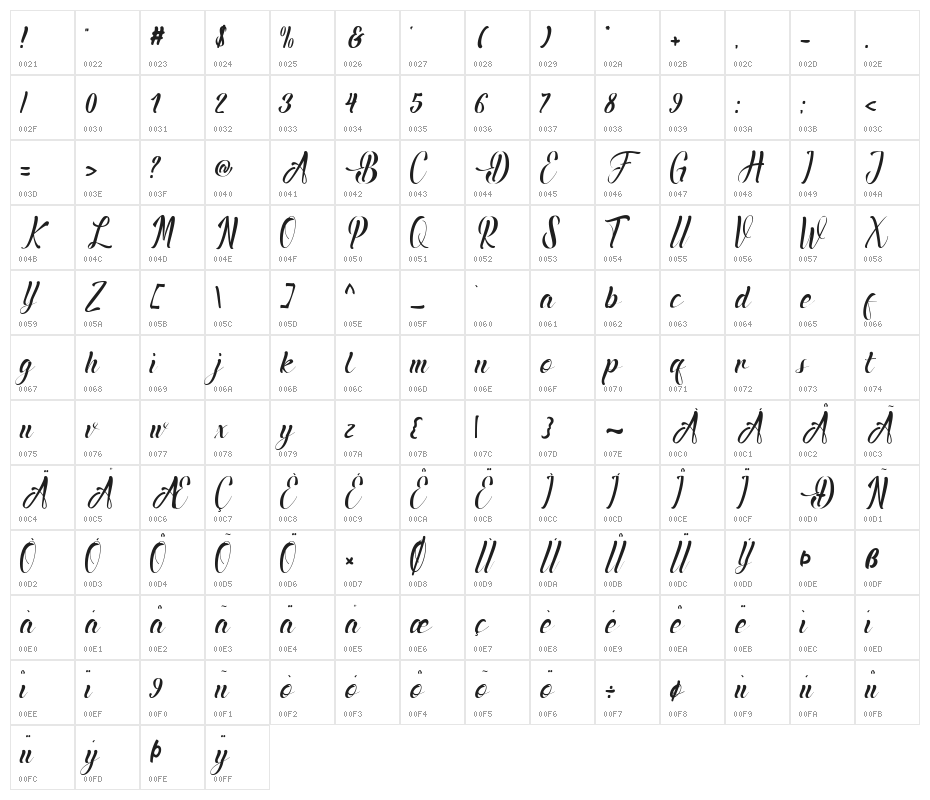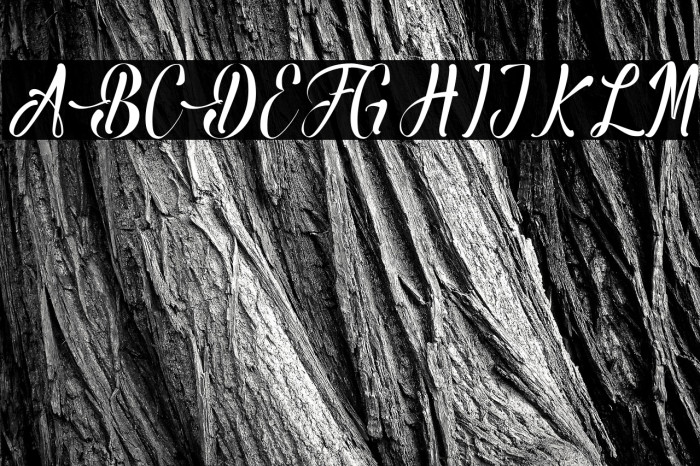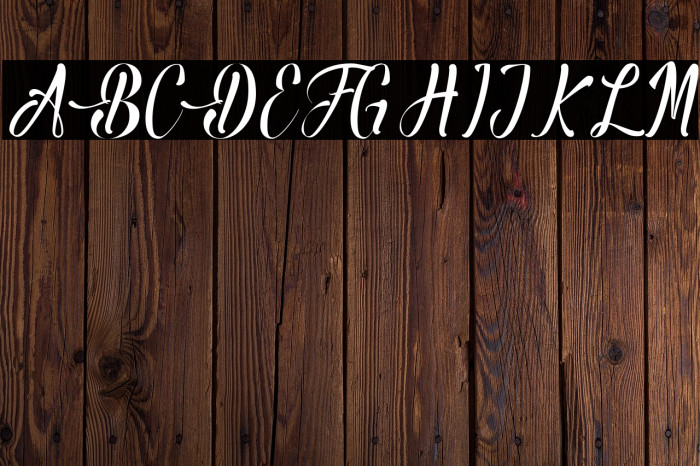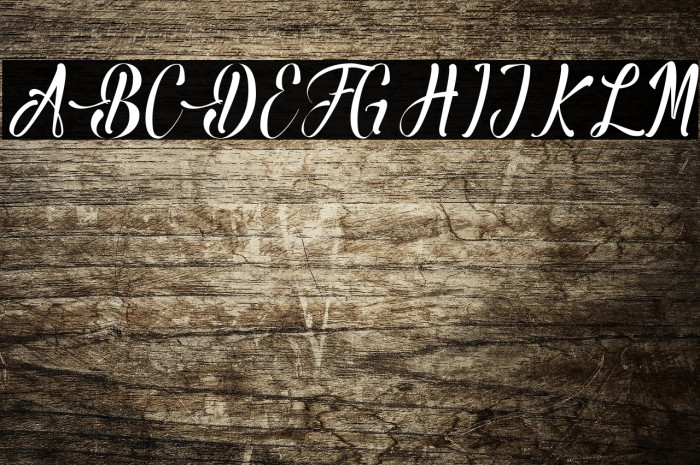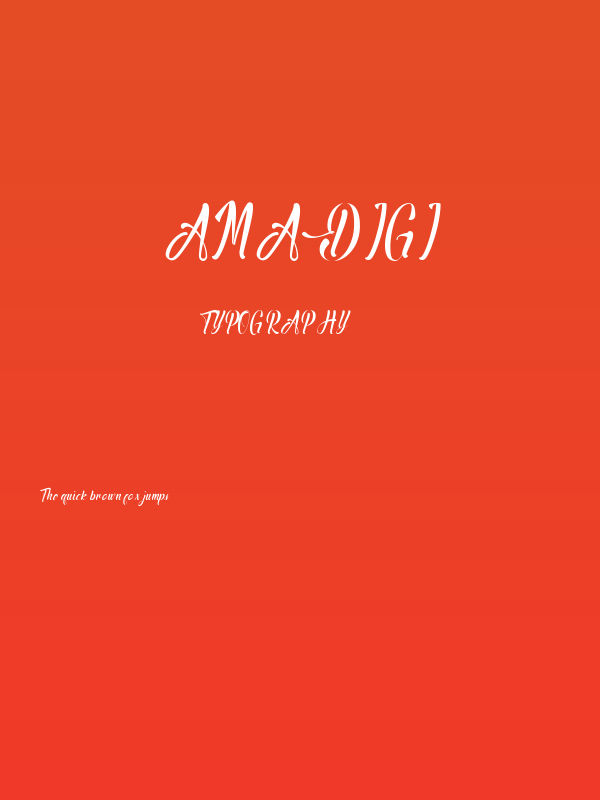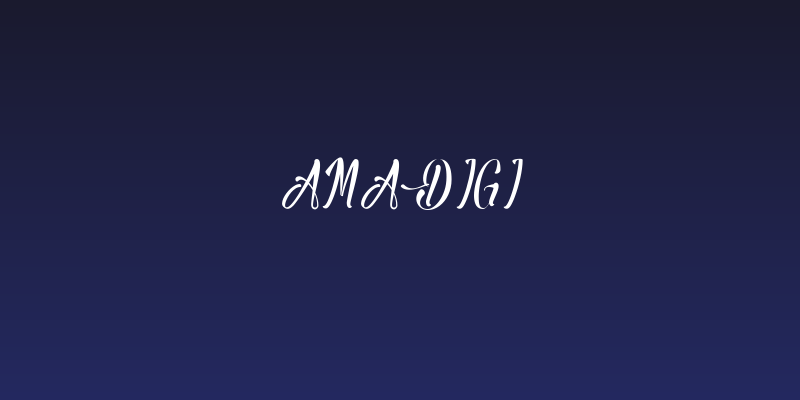
Amadigi Font
Amadigi Description
This elegant script font features a flowing, cursive style with a sophisticated flair. The uppercase letters are characterized by sweeping curves and intricate loops, giving them a sense of motion and grace. The lowercase letters maintain a consistent style, with smooth connections and a slightly slanted orientation. The numerals are designed to complement the letters, featuring similar curves and a balanced appearance. Special characters are thoughtfully integrated, maintaining the overall aesthetic. This font is ideal for projects that require a touch of elegance and formality, such as invitations, branding, and decorative designs.
| Overall Style | Elegant, Decorative |
| Proposed Projects | Ideal for wedding invitations, luxury branding, elegant logos, and decorative designs. |